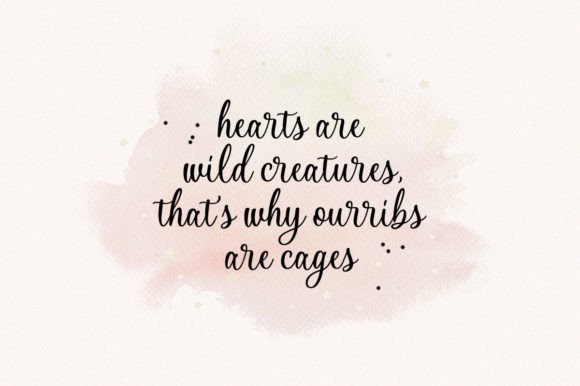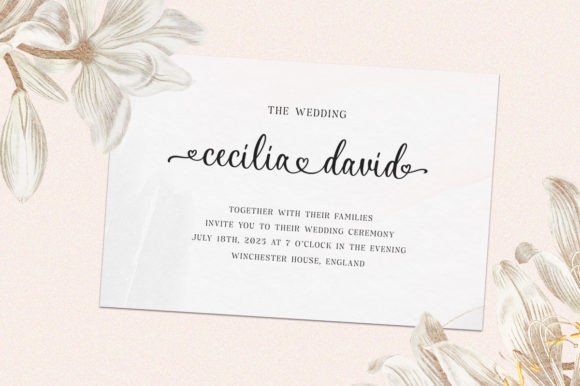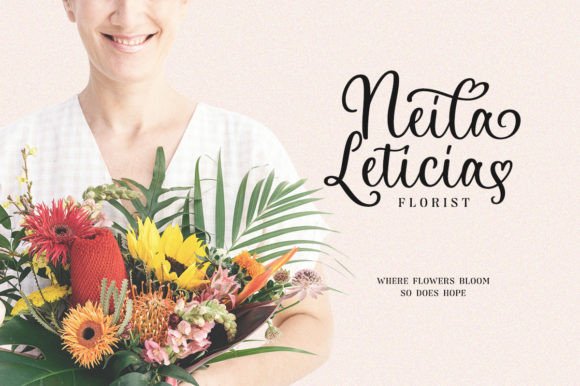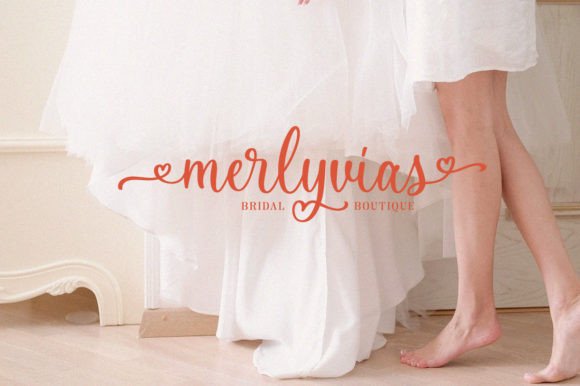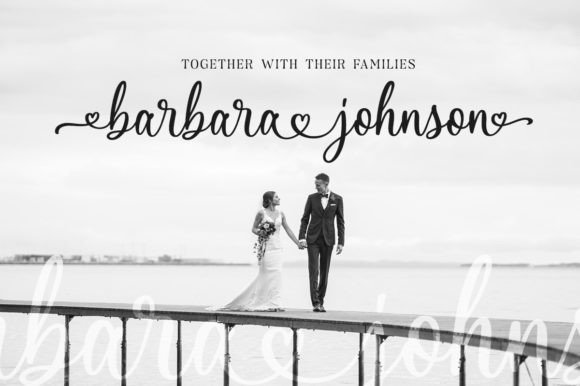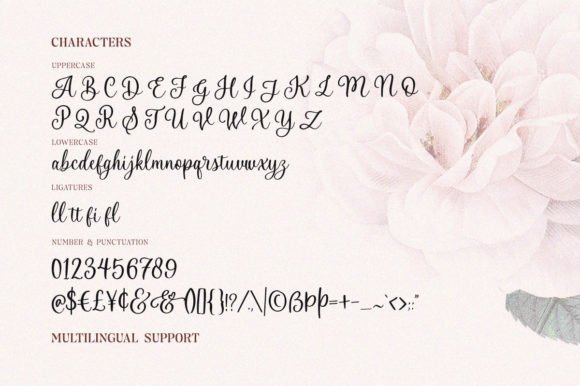
Introduction to Emely and Peter Font
As a designer, have you ever found yourself stuck in a creative rut, searching for the perfect font to add that extra special touch to your project? Maybe you’re working on a wedding invitation and need something that exudes romance and elegance. Or perhaps you’re designing a beautiful quote for a loved one and want to convey the emotions in a way that feels authentic.
Whatever your creative project may be, I’m excited to introduce you to a design resource that’s sure to make your heart skip a beat: the Emely and Peter Font. This stunning modern calligraphy script font is perfect for adding a touch of whimsy and romance to your designs, and its high-quality features make it a valuable asset for any designer looking to elevate their work.
Key Features of Emely and Peter Font
- High-quality design resource perfect for creative projects, including web design, graphic design, and print media.
- Features a clean and modern design aesthetic, ideal for contemporary creative projects.
Honest Review: Emely and Peter Font
As a designer, I’m always on the lookout for high-quality design resources to help bring my creative projects to life. The Emely and Peter Font has caught my attention, and I’m excited to share my honest review.
What works well: ✨ The font is a beautiful, elegant script that adds a touch of sophistication to any design. It’s perfect for creating eye-catching headings or titles. I also appreciate the fact that it’s available for free download, making it an excellent addition to my design library.
What doesn’t work well: ⚠️ One limitation I’ve noticed is that the font doesn’t work well with transparent backgrounds. This can make it tricky to use in certain design situations. Additionally, the font family is quite limited, with only a few styles available.
Overall, I’m impressed with the Emely and Peter Font. It’s a great addition to any designer’s toolkit, and I appreciate the high-quality design that’s gone into creating it. If you’re looking for a beautiful script font for your next creative project, I’d definitely recommend giving it a try.
- Perfect for creating elegant headings or titles
- Beautiful, high-quality design
How to Use Emely and Peter Font
Tips for Getting the Most Out of Emely and Peter Font
To get the most out of the Emely and Peter Font, use it for creative projects that require a high-quality, transparent background font. This font is perfect for designing invitations, social media graphics, and other visual content.
Common Use Cases for Emely and Peter Font
The Emely and Peter Font is commonly used for designing: invitations, social media graphics, blog posts, and other visual content that requires a high-quality, transparent background font.